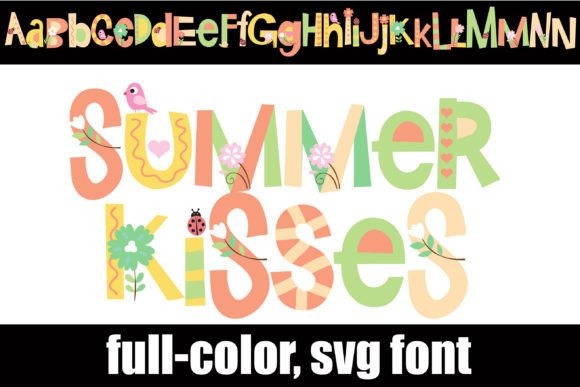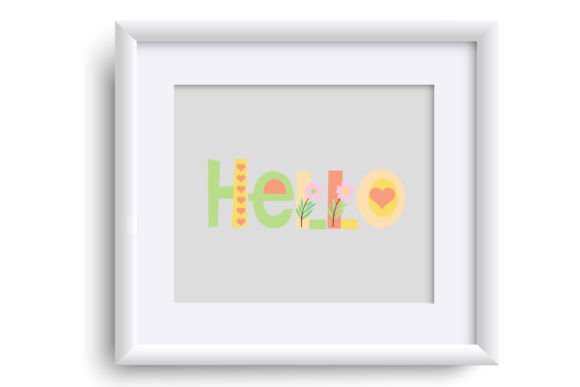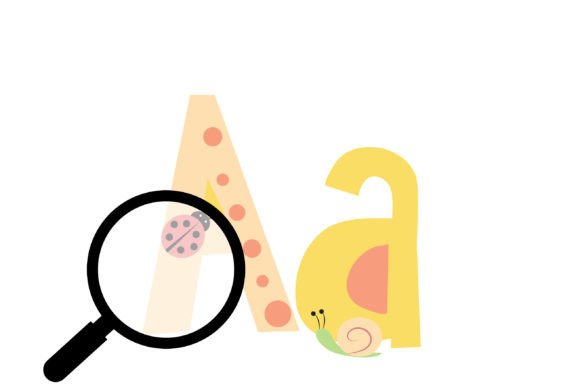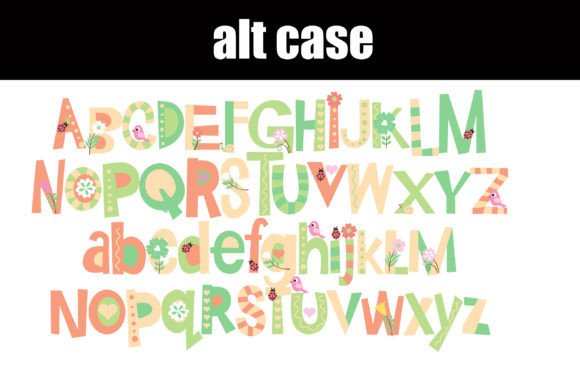
Summer Kisses Font
About the Summer Kisses Font
Crafted with precision, the Summer Kisses Font is ready to bring your ideas to life. This full-color font features a whimsical sans serif font with florals and bugs in summer color palette. There is an alt case w/ additional colors you can access through your system or Silhouette’s glyph map. This font works best for titles, displays, posters and more. Please note color fonts will show as black in non compatible programs. This font type is compatible with Silhouette Studio.